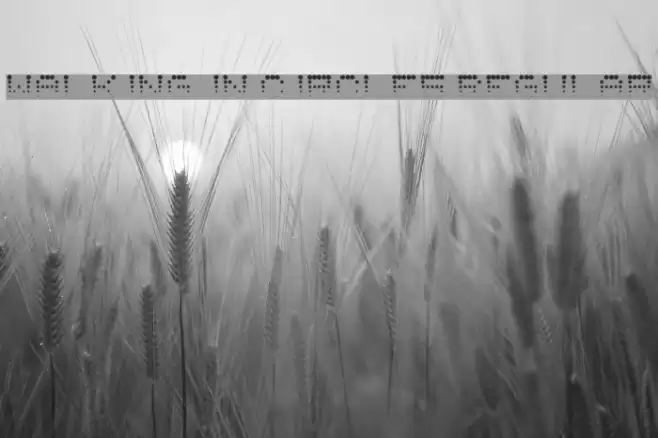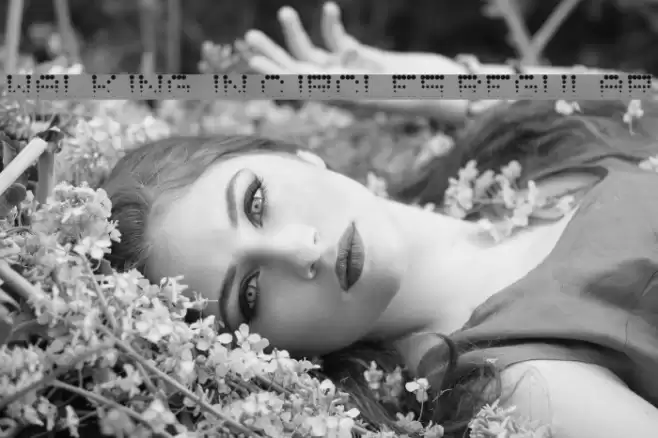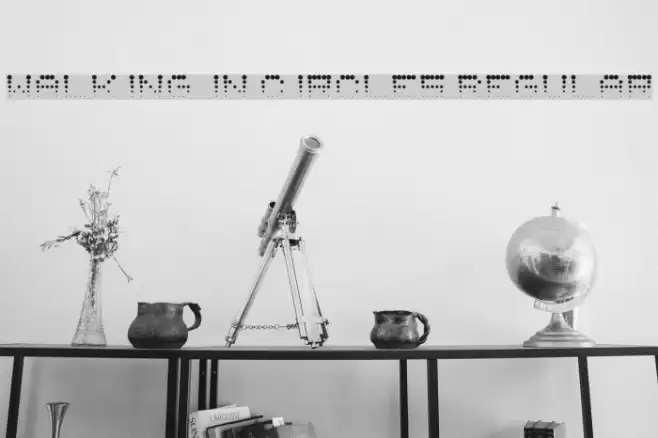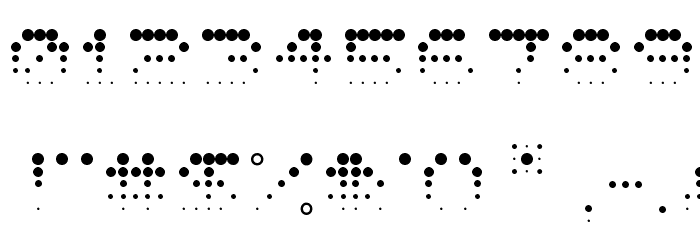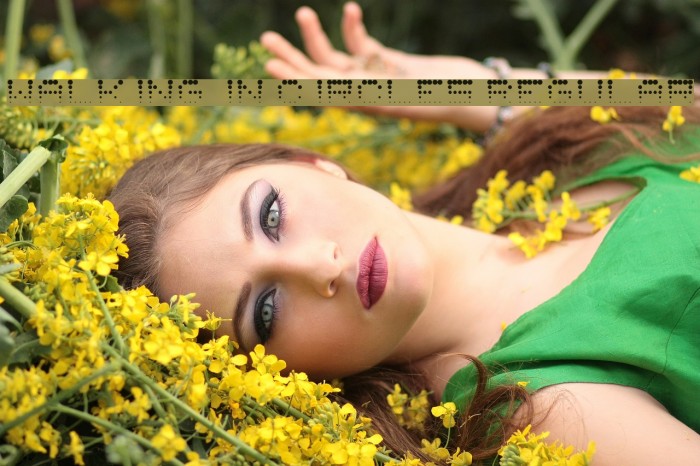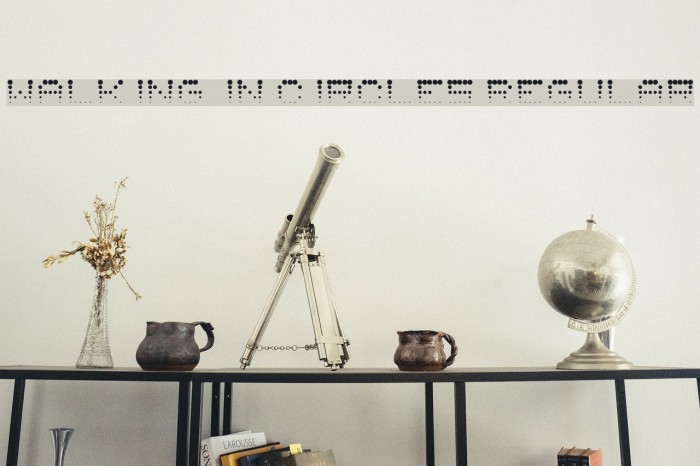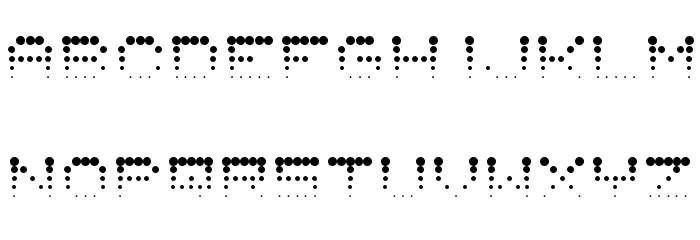
Walking in Circles Regular Font
Walking in Circles Regular Description
This font features a unique dotted style, where each character is composed of small, evenly spaced circles forming the outlines of letters and numbers. The design is consistent across uppercase, lowercase, and numerical characters, creating a cohesive and playful appearance. The font's structure is geometric and modern, with a focus on simplicity and clarity. The spacing between the dots is uniform, giving it a clean and organized look. This style is particularly eye-catching and can be used to draw attention to specific text elements.
A modern, dotted font with geometric and playful characteristics from Kids fonts.
- Proposed Projects: Ideal for creative projects such as posters, digital art, children's books, or any design needing a playful and modern touch.
- Character Spacing: Wide